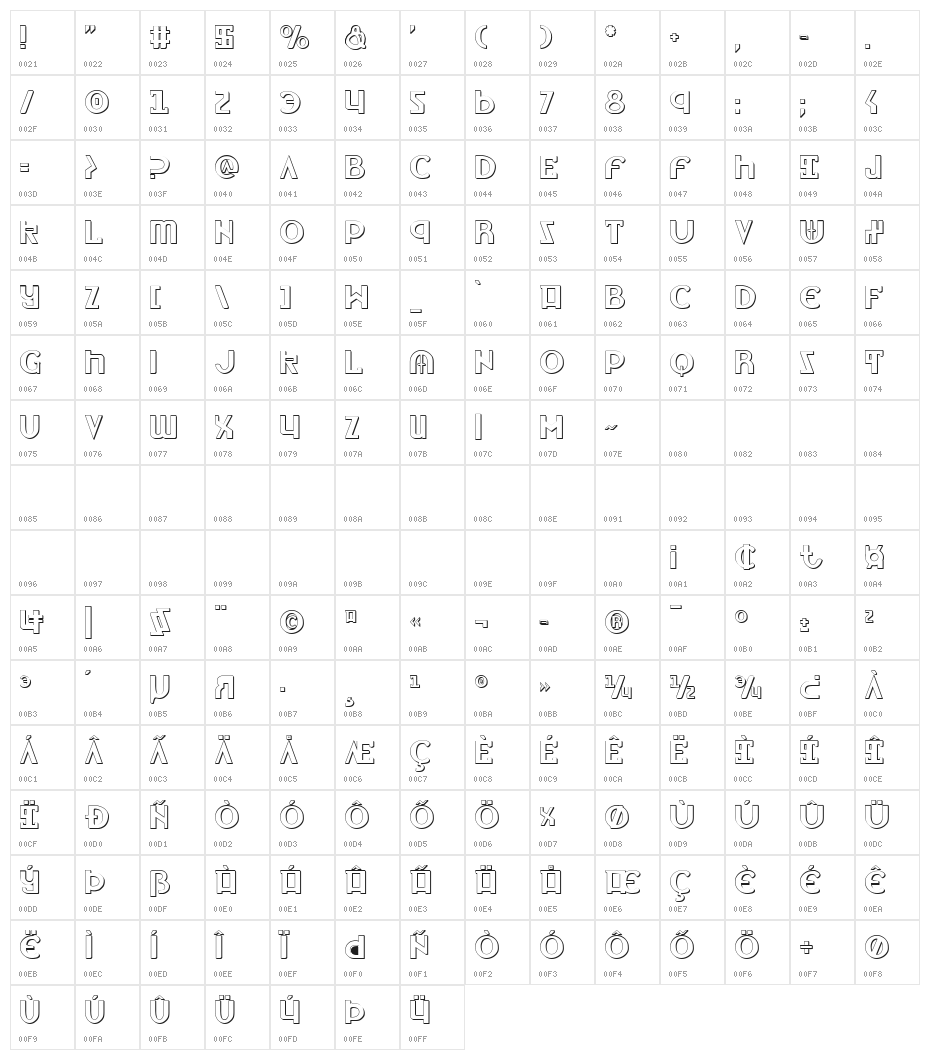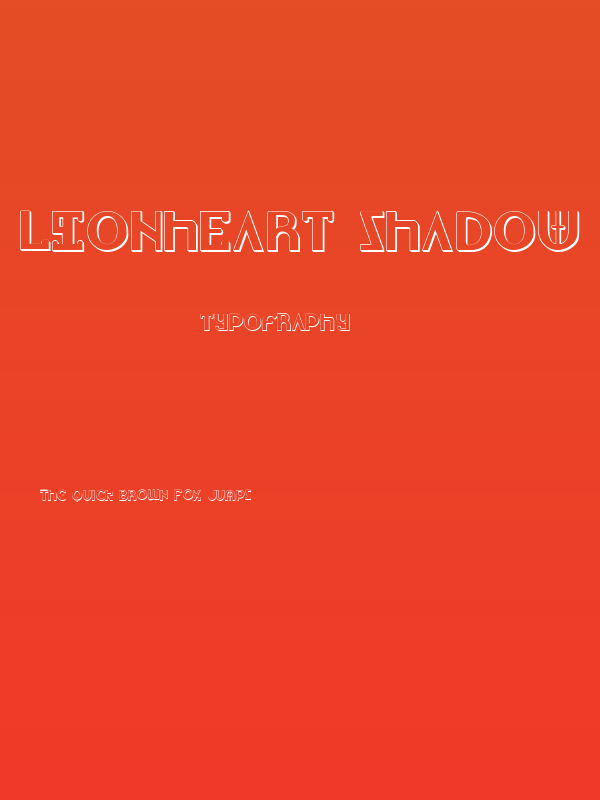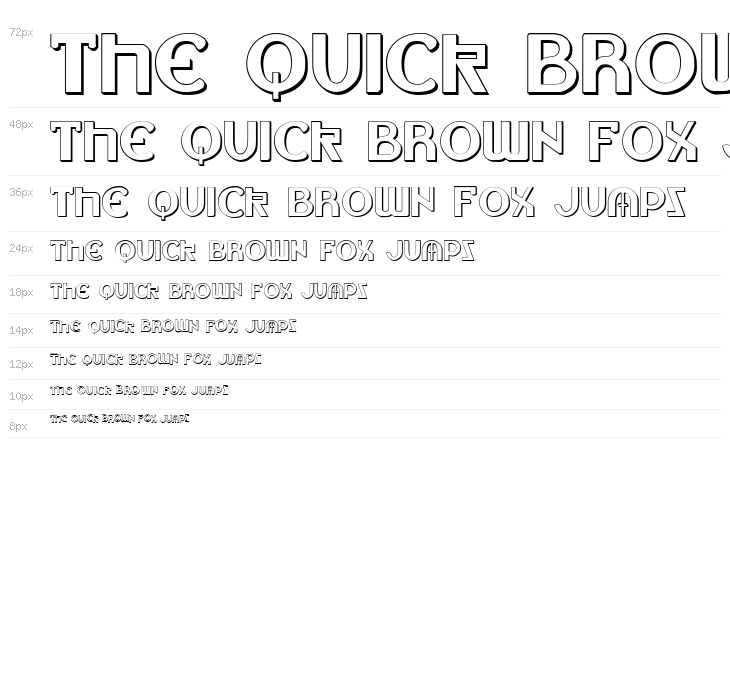
Lionheart Shadow Font
Lionheart Shadow Description
This font features a bold and geometric design with a shadow effect that gives it a three-dimensional appearance. The uppercase letters are crafted with sharp angles and clean lines, creating a modern and futuristic look. The lowercase letters maintain the same geometric style, ensuring consistency throughout the typeface. Numbers and special characters are designed to match the boldness and angularity of the letters, making them stand out. The overall aesthetic is striking and eye-catching, perfect for projects that require a strong visual impact.